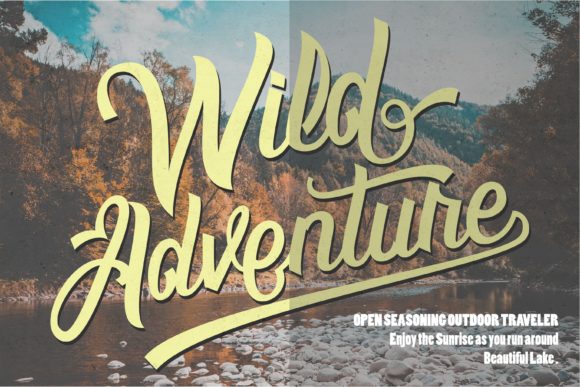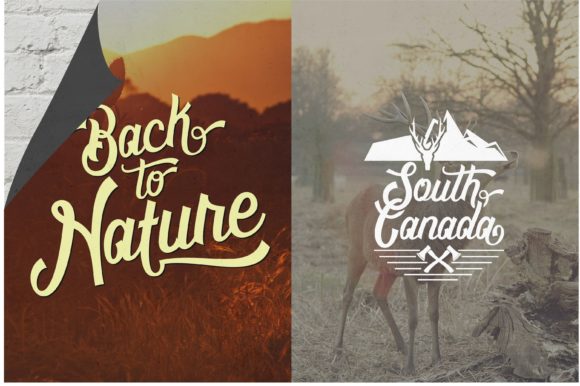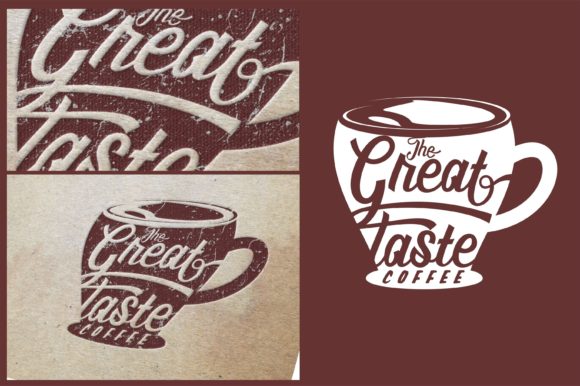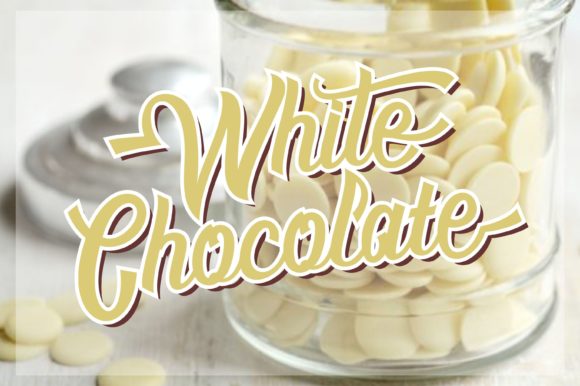
Introduction to Montreal Script Font
Montreal is a nostalgic and sophisticated script with a cool vibe.
Get inspired by its unique charm .
Key Features of Montreal Script Font
Why Choose Montreal Script Font?
Montreal Script Font offers exceptional quality and versatility, making it a valuable addition to your design toolkit. Whether you’re creating for personal projects or commercial use, Montreal Script Font delivers professional results.